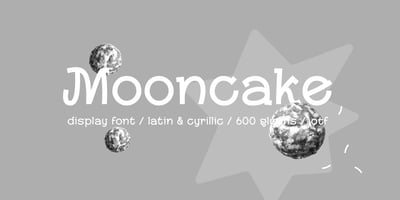
Mooncake Font Family was designed by Raisa Abramova and published by RA Studio. Mooncake contains 1 styles and family package options. He is round. He is funny. He is Mooncake font. It is perfect for eye-catching signs, posters, headers, product packaging, book cover, logotype, apparel design and etc.Display fontExtended latin & cyrillic600 glifs